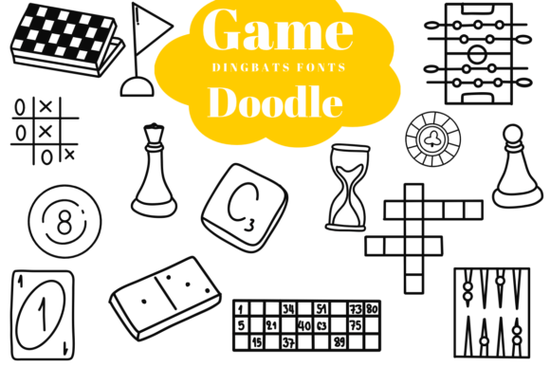
If you are looking to add a playful, retro vibe to your crafting projects, the Game Doodle Font is a fantastic resource to explore. Instead of standard letters, this specialty dingbats typeface gives you instant access to hand-drawn gaming icons. It is perfect for designers and crafters who want to bring the fun of family game night directly into their layouts without spending hours drawing individual elements.
What kind of icons are included in this typeface?
When you open this file, you will not find a traditional alphabet. Instead, every keystroke produces a charming, clean-line sketch. The library includes a wide variety of tabletop and arcade elements. You can easily insert chess pieces, tic-tac-toe grids, billiards 8-balls, and word game tiles. It also features domino blocks, crossword puzzles, poker chips, playing cards, hourglasses, and even foosball tables. This makes it incredibly easy to build out a complete scene just by typing, giving you a massive shortcut for your creative workflow.
How well does it work with cutting machines?
For crafters using a Cricut or Silhouette, the technical setup of these vectors is just as important as the visual design. This typeface is engineered with smooth, uniform monoline paths. Because the profiles are clean black-and-white doodles, they cut beautifully on popular tracking plotters. You will not have to deal with messy overlapping lines, tiny intricate details, or jagged edges when weeding your vinyl or cardstock. The uniform line weight ensures that every piece stays intact during the transfer process. If you need more visual assets for your cutting machine, you can explore our directory of icon typefaces to find the perfect match for your next craft.
What are the best projects to create with these gaming graphics?
The versatility of these whimsical icons makes them suitable for a wide range of commercial and personal projects. Here are a few practical ways small business owners, print-on-demand sellers, and hobbyists are using them:
- Print-on-demand apparel: Create custom family night t-shirts, matching hoodies for game tournaments, or cozy lounge wear featuring classic board game motifs.
- Event marketing: Design eye-catching flyers, menus, and scorecards for local board game clubs, cafe trivia nights, or community game tournaments.
- Planner accessories: Add playful scoring journal decals, track your personal reading goals, or create custom habit trackers for your bullet journal.
- Educational materials: Build fun, engaging worksheets for kids that incorporate puzzles, matching games, and interactive learning elements.
- Digital products: Compile a playful sticker collection for digital planning apps like GoodNotes or Notability.
Do I need advanced design skills to use this file?
Not at all. The biggest advantage of using an icon typeface is the simplicity. You do not need to open a complex vector program to draw shapes from scratch or piece together individual SVG files. Simply select the font in your preferred software, type on your keyboard, and the graphics appear. Because they are fully scalable vectors, you can resize them from a tiny sticker to a large poster without losing any outline precision. It is an excellent tool for beginners and professionals alike.
Quick Tips for Your First Project
- Layer your colors: Since these are monoline designs, consider cutting them in multiple colors and layering them to add depth to your physical crafts.